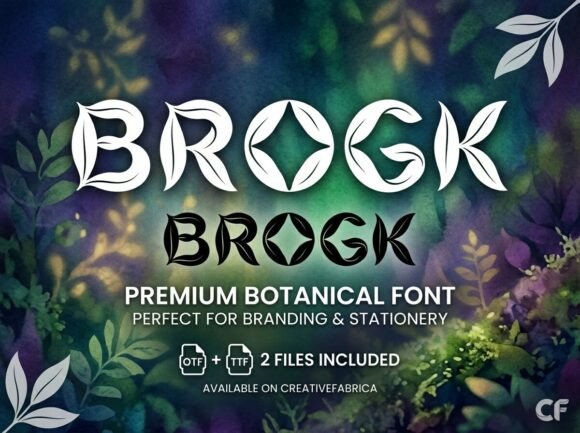
The Brock Font: A Game-Changing Display Typeface for Creative Rebels
I’ll never forget the design project that led me to discover the Brock Font. I was working on a luxury packaging campaign for a high-end fashion brand, and I needed a font that would make a statement. Something bold, artistic, and attention-grabbing. After hours of scouring font libraries and testing various typefaces, I stumbled upon Brock Font. Its unique artistic flourishes and commanding visual personality immediately caught my eye. I knew right then and there that I had found the perfect fit for my project.
So, what makes Brock Font so special? Here are a few things I love:
- ✨ Unique artistic flourishes: Each letter is crafted with intricate details, making it a true showstopper.
- ✅ High-end polish: Despite its avant-garde vibe, Brock Font maintains a sophisticated finish suitable for luxury brands.
- 💥 Attention-grabbing: This font is designed to be the focal point of any composition, making it perfect for headlines and titles.
Now, I do want to mention a couple of quirks to keep in mind:
- ⚠️ All-caps only: Brock Font is an uppercase-only typeface, which might limit its use for body text or longer paragraphs.
- 🤔 Glyph overload: With so many unique artistic flourishes, it can take some time to get familiar with the glyphs and stylistic alternates.
The Design Story Behind Brock Font
Brock Font was crafted by a team of designers who sought to create a typeface that would defy conventions. Inspired by the world of art and fashion, they aimed to create a font that would be both beautiful and bold. The result is a font that’s equal parts artistic expression and refined sophistication.
| Font Name | Brock Font |
| Author | Angel_Srapix |
| Is Brock Font suitable for body text? | No, Brock Font is designed for display purposes only and is best used for headlines and titles. |
In conclusion, Brock Font is a game-changing display typeface that’s sure to elevate your designs. With its unique artistic flourishes, high-end polish, and attention-grabbing personality, it’s the perfect fit for creative rebels and luxury brands alike.